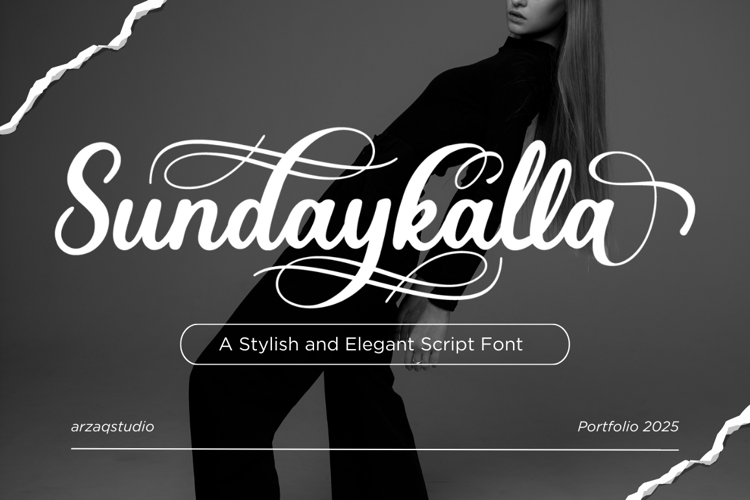
Sundaykalla Font
Sundaykalla is a stylish and elegant script font featuring smooth curves and decorative swashes, perfect for adding a touch of sophistication to your personal projects. This version is free for personal use only.